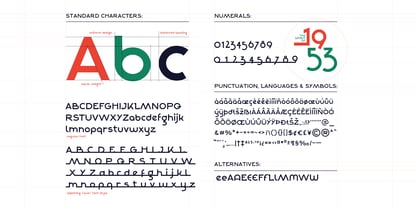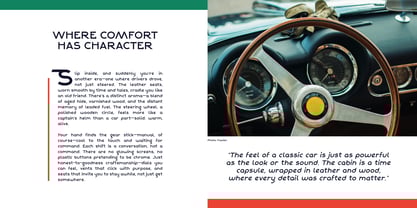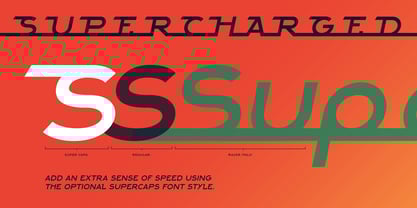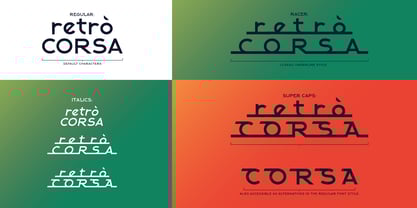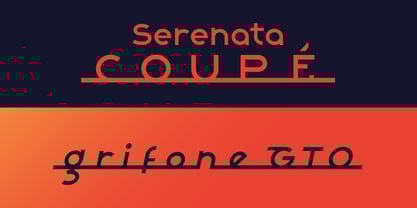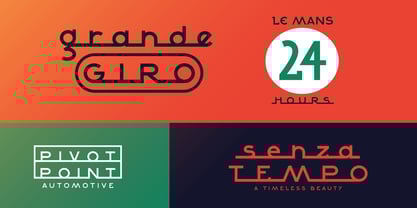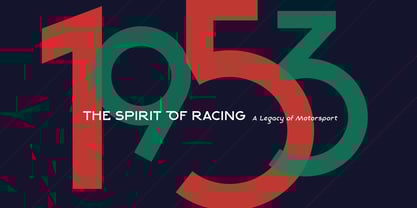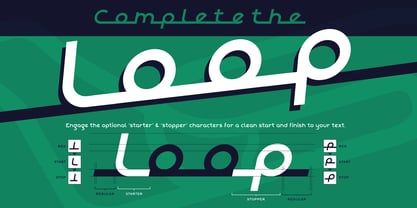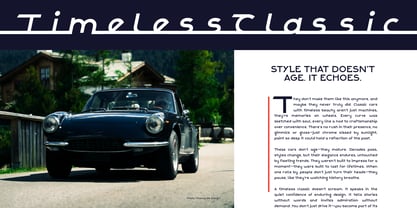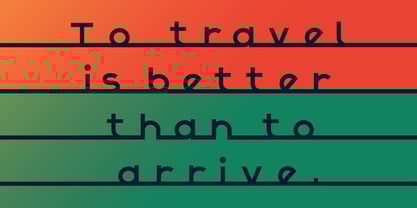
Alpha Strada
Die Schriftfamilie Alpha Strada wurde von Christopher King entworfen und von Wing's Art Studio veröffentlicht. Alpha Strada enthält 6 Stile und Familienpaketoptionen. Mehr über diese Familie
Alpha Strada: Luxury Type Inspired by Vintage Car Emblems
Alpha Strada is a versatile display font with bold personality, heritage flair, and a luxury feel. It’s built for high-end branding, editorial design, and retro-modern visual identities.
Taking its name from a wordplay on alphabet and autostrada, Alpha Strada draws inspiration from classic Italian automobiles, mid-century car badging, and the geometric elegance of Art Deco. Each character has been tailored to reflect a sense of speed and poise: sharp terminals, bold tapers, and balanced symmetry give it a commanding yet refined presence. It’s ideal for branding, packaging, editorial, and signage—any application where legacy, craftsmanship, and high design are essential.
Alpha Strada echoes the spirit of the 1950s: a time of optimism and sophisticated design. It draws directly from the clean lines and geometry of Art Deco—the movement that championed precision, ornament, and the beauty of balance. It blends this bold Deco influence with the warmth of Italian automotive design, creating a font that is both timeless and contemporary.
In its regular configuration, Alpha Strada includes uppercase and lowercase characters, numerals, and multilingual support, along with stylistic alternatives—perfect for sub-headings or body copy. The Racer style introduces a classic sports underline, reminiscent of vintage car branding—ideal for logos and titles. Shift up a gear with SuperCaps, a decorative take on the capitals that adds dynamic flair and visual drama. All styles include matching italic versions for added versatility.
Alpha Strada walks the line between mechanical precision and hand-built charm - designed not just as a font, but as a storytelling tool for brands that value heritage and refinement.